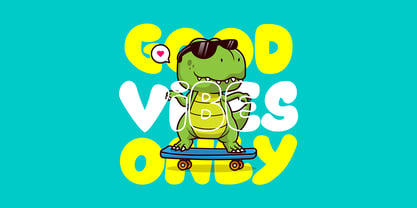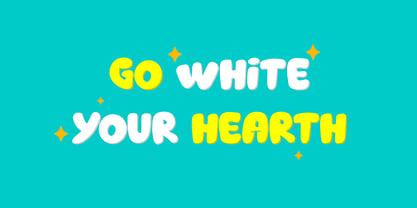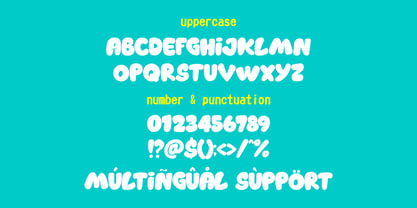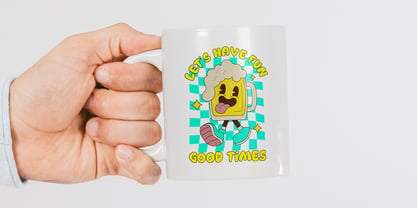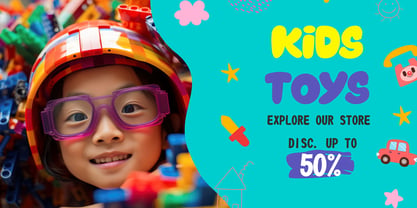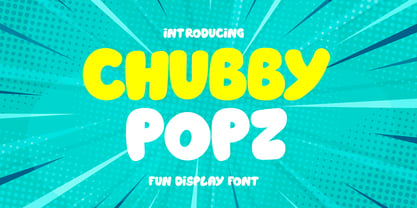
Chubby Popz
The Chubby Popz Font Family was designed by Sipanji and published by Sipanji21. Chubby Popz contains 1 styles. More about this family
Chubby Popz is a playful and bold display typeface designed to bring joy, energy, and fun into every design. Inspired by cartoon lettering, pop art visuals, and retro comic aesthetics, this typeface features thick rounded shapes that instantly create a friendly and approachable visual tone. The defining characteristic of Chubby Popz lies in its soft, oversized letterforms. Each character is crafted with smooth curves and balanced proportions, giving the typeface a bubbly and cheerful personality. The rounded edges remove any sense of rigidity, replacing it with warmth and playfulness that works perfectly for lighthearted and creative projects. This font is designed to stand out. Its bold weight and chunky structure ensure high visibility, making it ideal for headlines, titles, and any design that requires strong visual impact. Despite its boldness, Chubby Popz maintains excellent readability, even at larger sizes, thanks to its clean construction and consistent spacing. Chubby Popz is highly versatile and works beautifully across a wide range of creative applications. It is especially suitable for: Kids branding and products Cartoon and comic designs YouTube thumbnails Social media graphics Posters and flyers Packaging design Merchandise and apparel Gaming visuals Event promotions Educational materials Its fun and energetic personality makes it a perfect choice for projects that aim to feel friendly, youthful, and engaging. Whether used for children’s content or modern pop-style branding, Chubby Popz adds a lively and expressive touch. The font includes uppercase and lowercase letters, numbers, and punctuation, giving designers flexibility to create complete compositions. The consistent stroke thickness ensures harmony across all characters, while the rounded forms enhance readability and visual softness. Chubby Popz draws inspiration from retro pop culture and modern digital trends. It blends nostalgic comic-style typography with a clean contemporary finish, making it suitable for both vintage-inspired and modern designs. The bold shapes work exceptionally well with bright colors, gradients, and vibrant backgrounds. One of the key strengths of this typeface is its adaptability. It can be used as a main headline font or combined with simpler typefaces for supporting text. The playful style allows it to become the focal point of any composition without overwhelming the overall design. The font performs well in both print and digital environments. From posters and packaging to mobile screens and social media, Chubby Popz maintains its clarity and impact. Its rounded structure also makes it ideal for cut-out designs, stickers, and layered compositions. Chubby Popz is more than just a display font—it is a tool for creating happiness through typography. It brings a sense of fun, creativity, and positivity into any project, helping designers communicate in a way that feels approachable and engaging. If you are looking for a bold, playful, and highly expressive display typeface that captures the spirit of fun and creativity, Chubby Popz is the perfect choice to elevate your design with personality and charm.